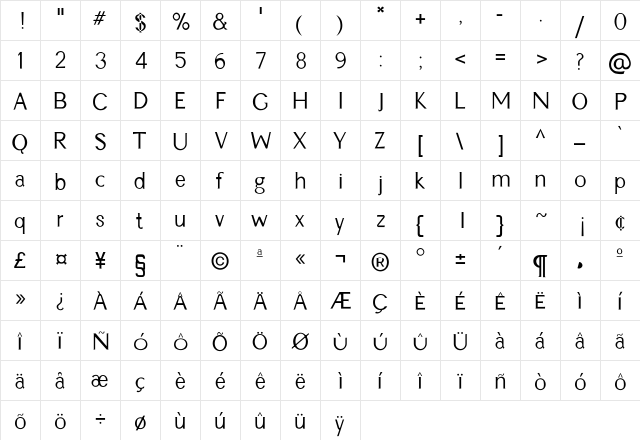
Kathlita- Regular
Design Context for Kathlita- Typeface
Kathlita- takes a measured approach to typography — its balanced proportions and neutral character make it a reliable workhorse for both digital and print work.